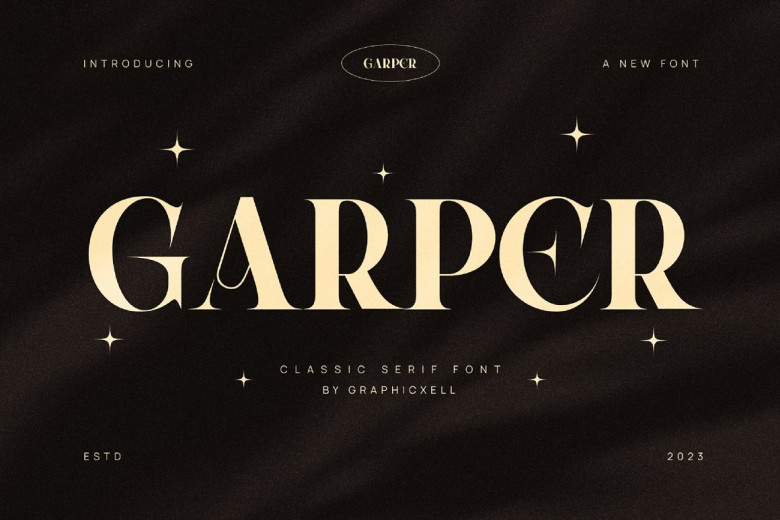
Garper Font
Garper font is an exquisite font designed to help create logos and branding projects with style. It combines an elegant serif typeface with a modern and classy design for maximum impact when designing logos and branding projects, wedding designs, social media ads, posts,
ads, packaging design labels, product designs labels, photography watermarks, invitations or stationery projects that require high levels of comprehension – you won’t be disappointed when purchasing it!!
Garper Elegant Serif Font